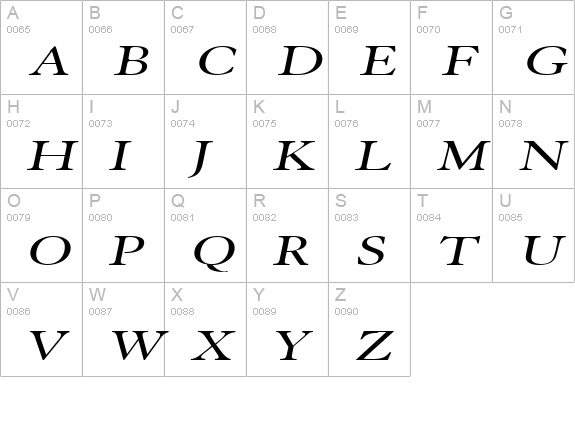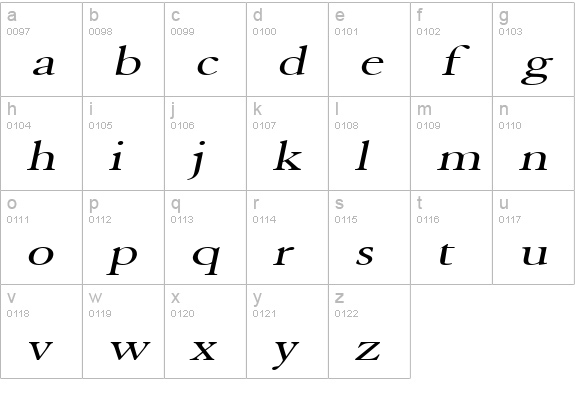
Elephant Extended Italic Font Details
Elephant Extended Italic is a distinctive, extended-width, italic variant in the Elephant typeface family \xE2\x80\x94 well suited to design and typography projects.
Introducing Elephant Extended Italic font - a bold and elegant typeface designed to make a powerful statement. Its sleek and elongated form exudes sophistication and modernity, making it perfect for a wide range of design projects. The slanted italic style adds a touch of dynamism and flair to any text, making it stand out with grace and poise. This distinctive font is not only visually striking but also highly versatile, making it suitable for various applications such as branding, editorial design, signage, and more. Whether you're creating a bold headline or adding a touch of elegance to your body text, Elephant Extended Italic font is sure to make a lasting impression. And the best part? Elephant Extended Italic font is available for free download at FontsMarket.com. So go ahead and elevate your designs with this stunning typeface that combines style, sophistication, and flair in one beautiful package. Download now and let your creativity soar with Elephant Extended Italic font.